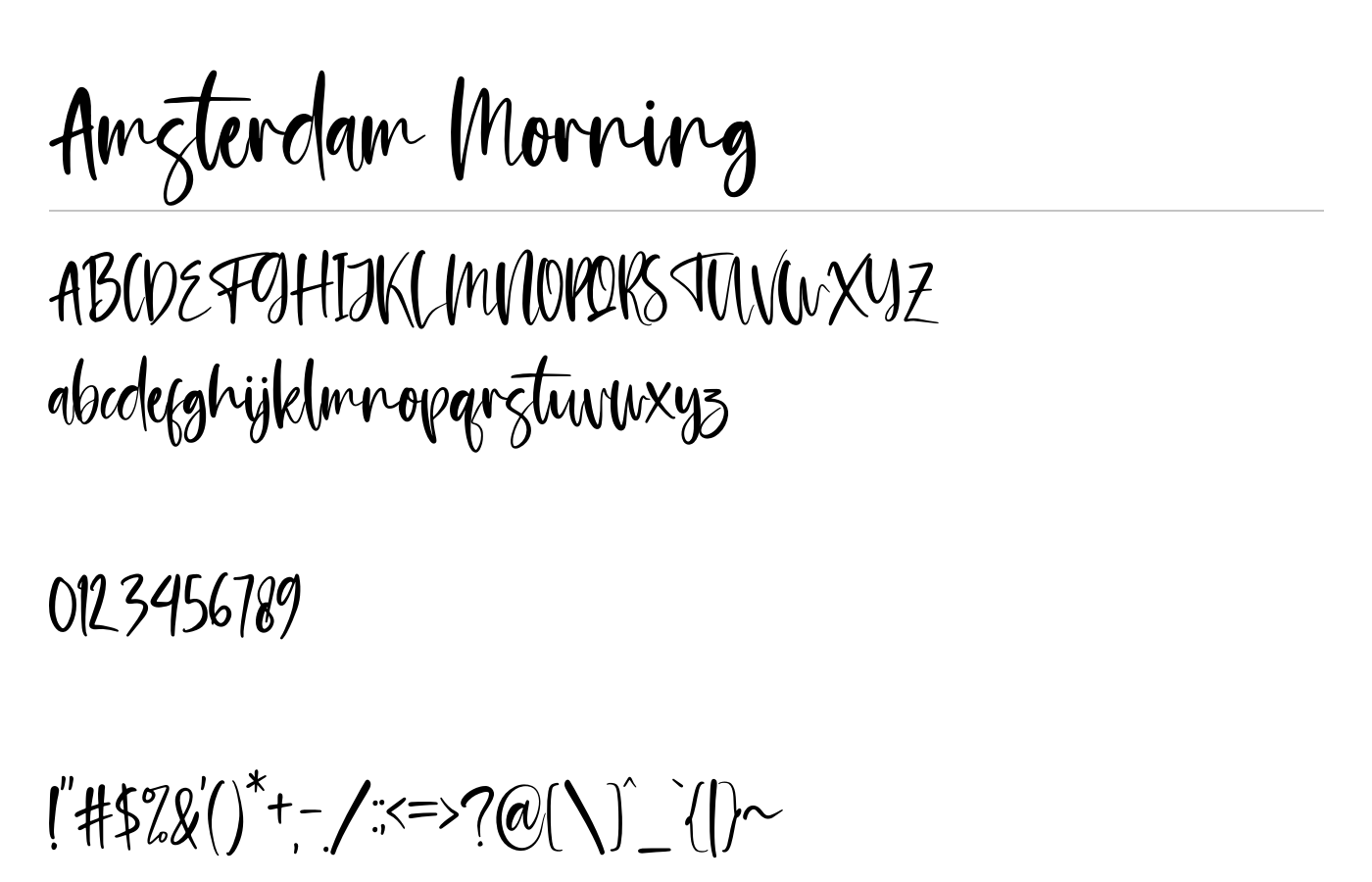
Amsterdam Morning is a lively, handwritten script font with playful, flowing letterforms and a casual yet elegant feel. Its tall, narrow characters combined with smooth, organic strokes make it perfect for adding a personal, friendly touch to invitations, branding, and creative projects that seek warmth and approachability. This font works well in headlines and display uses where a charming, informal style is desired.
Amsterdam Morning Font
About Amsterdam Morning Font